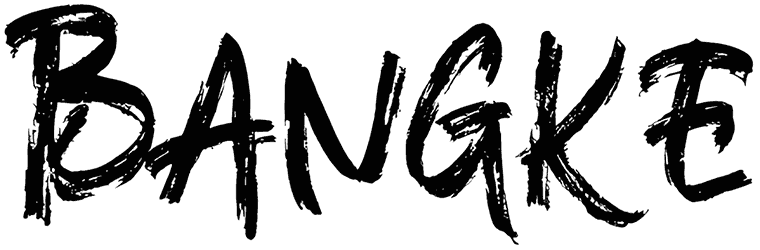
Human Crush Font
With a cool and realistic visual of this brush font, you can easily add an urban and artistic vibe to your layout. The characters of this handwritten font are smooth and eye-catching, but it doesn’t support lowercase letters. Human Crush font will act as a nice selection for different projects, like a beach café sign, or anything else.
Designed by: Maulana Creative